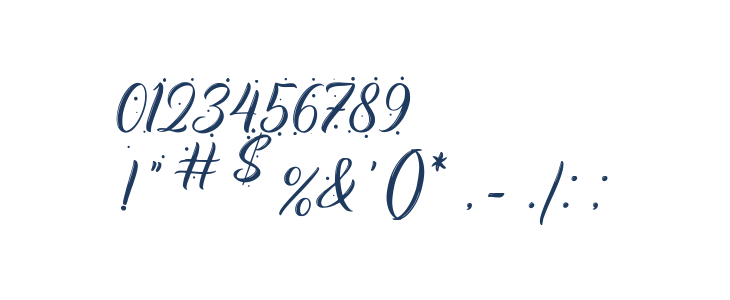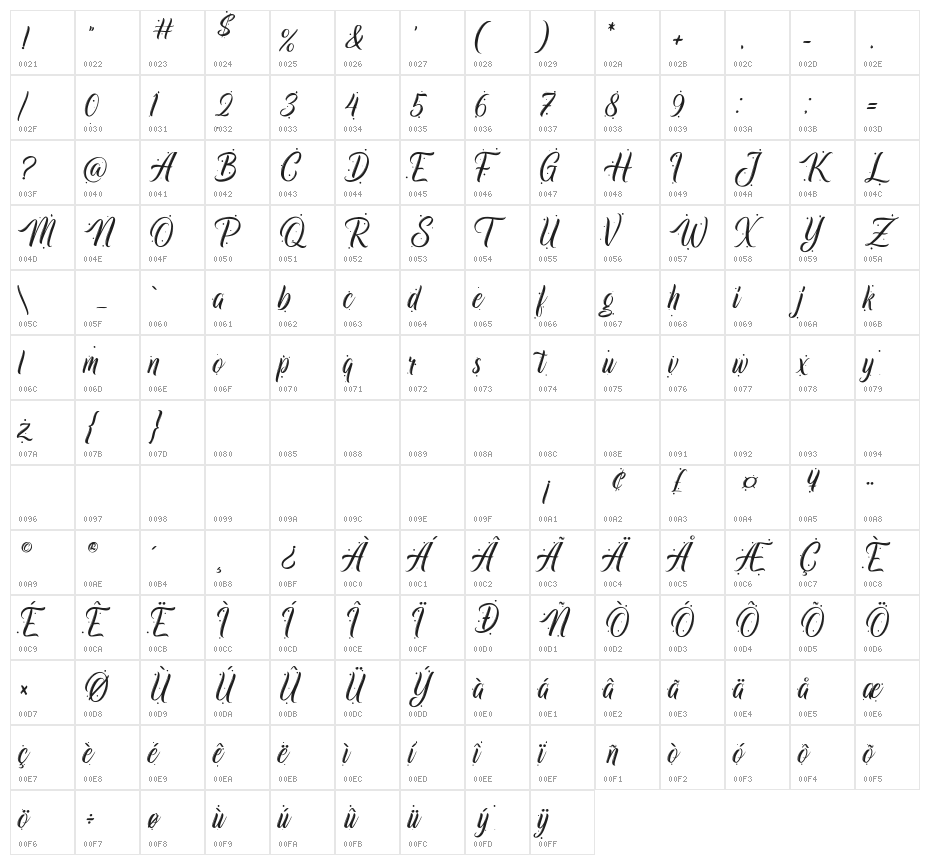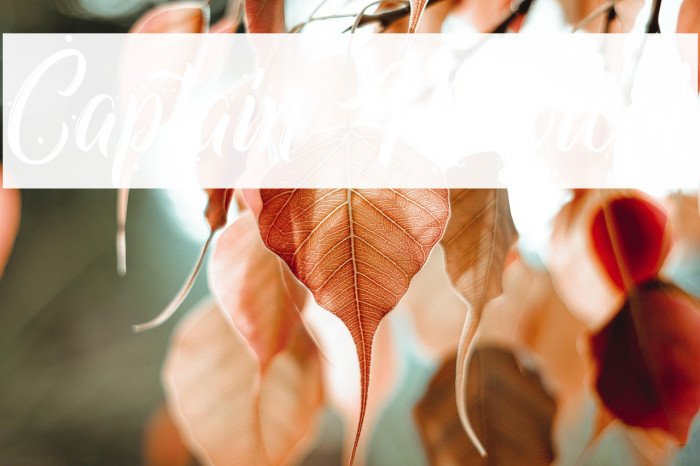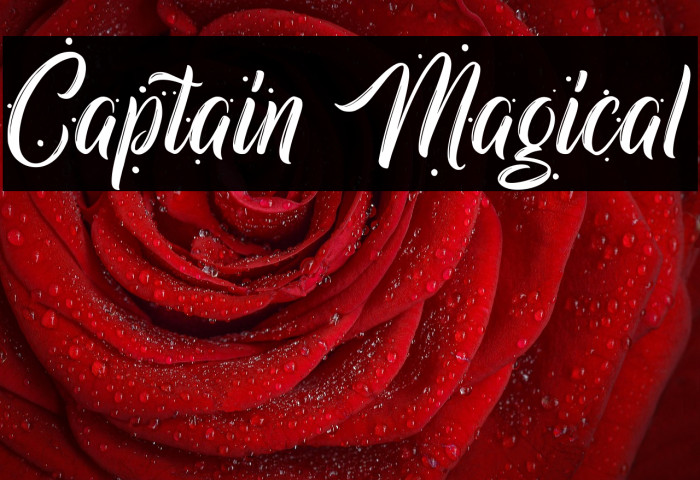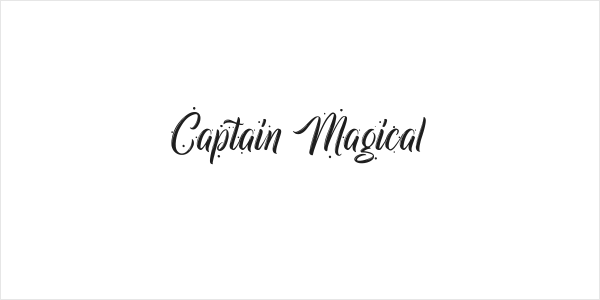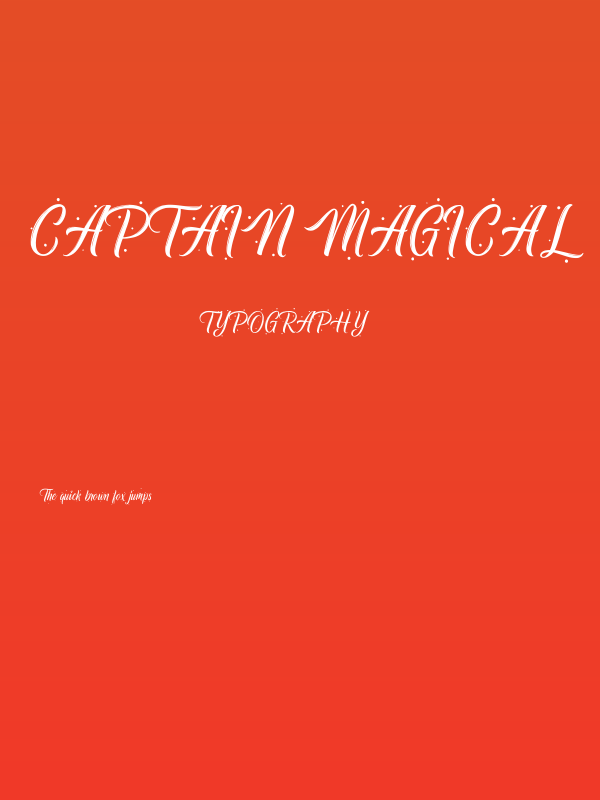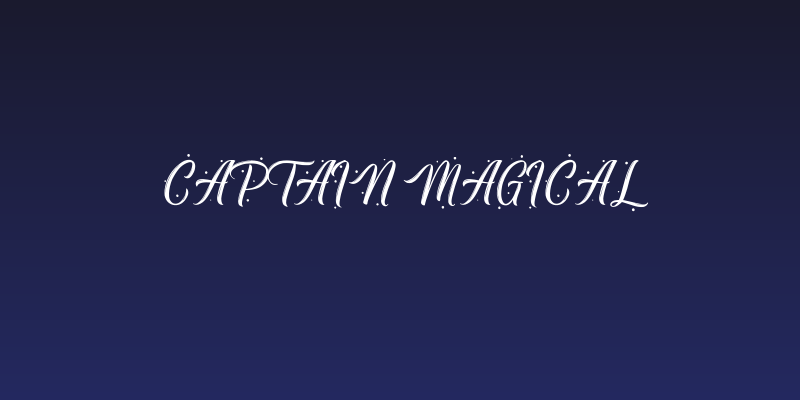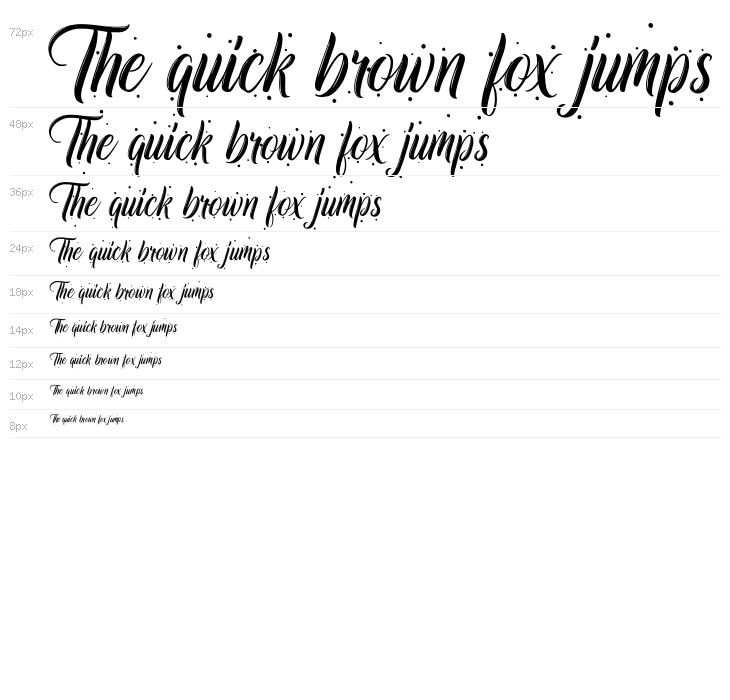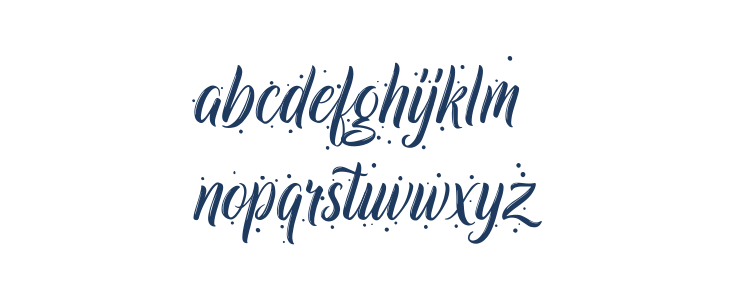
Captain Magical Font
Captain Magical Description
This font features an elegant and flowing script style, characterized by its smooth, cursive strokes and decorative elements. Each letter is adorned with small dots, adding a whimsical touch to the overall design. The uppercase letters are tall and graceful, while the lowercase letters maintain a consistent fluidity, enhancing readability. The numerals are styled to match the letters, with a slight slant and similar decorative dots. Special characters are included, maintaining the same artistic flair. This font is ideal for creative projects that require a touch of elegance and playfulness.
| Use Case | Logos, Invitations, Artistic projects |
| Proposed Projects | Ideal for wedding invitations, greeting cards, branding, and artistic projects. |